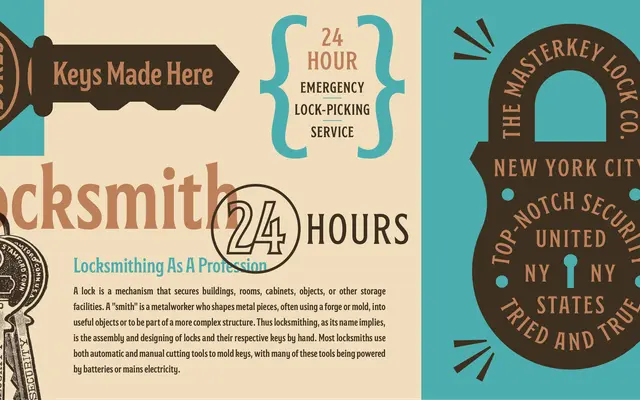
Mastermind
Fort Foundry · Clark Orr, Brian Brubaker
A condensed flared serif drawing on American sign painting and late 19th-century print ephemera, available in five weights with matching italics.
Designed by Clark Orr and Brian Brubaker, Mastermind sits between the warmth of hand-lettered signage and the formality of 19th-century typographic ornament. Its condensed proportions and flared terminals give it a period character that works across display and editorial applications without reading as pastiche. The family spans ten styles from Regular to Black Italic, plus a variable font, with broad Latin language support.
Mastermind is described as a condensed flared serif, combining influences from 20th-century sign painting and late 19th-century print ephemera, placing it firmly in the flared or glyphic serif tradition.